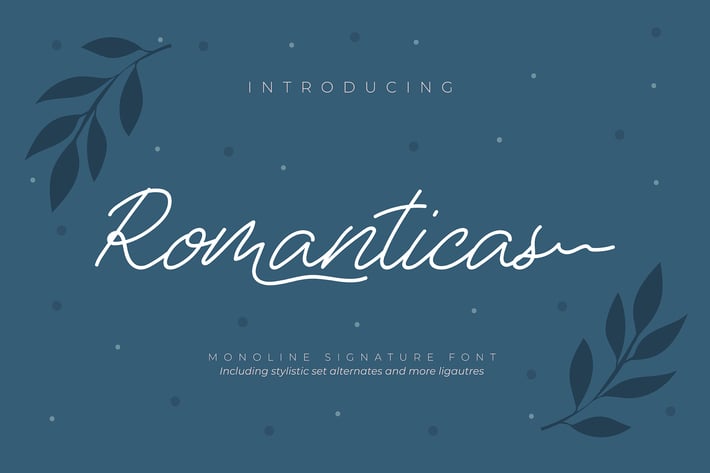
Romanticas | Monoline Signature Font
Romanticas | Monoline Signature Font with a calligraphy style, So beautiful on invitation like greeting cards, branding materials, business cards, quotes, posters, and more!